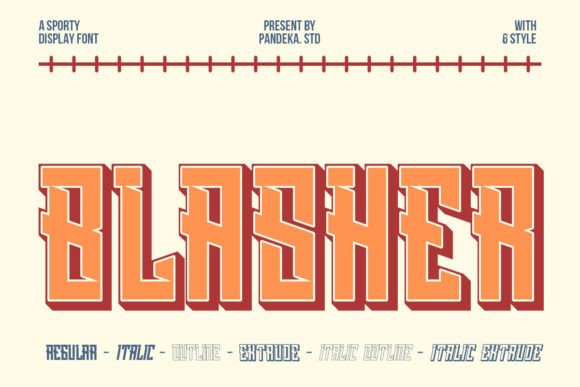
Introducing Blasher: The Ultimate Sporty Display Font for Energetic Designs
In the world of typography, fonts play a crucial role in conveying the tone and personality of a design. For projects that require a dynamic and athletic feel, such as sports-themed branding, logos, and posters, a font that packs a punch is essential. This is where Blasher comes in – a sporty display font with a condensed slab style that’s perfect for capturing the spirit of sports, particularly baseball.
What is Blasher Font?
Blasher is a carefully crafted display font designed to elevate your designs with its unique blend of dynamism and athleticism. Its condensed slab style gives it a strong presence, making it stand out in any design. Whether you’re working on a sports-themed project or an energetic design that requires a bold statement, Blasher is the perfect choice.
Key Features of Blasher Font
- 6 Styles: Blasher offers six distinct styles to cater to various design needs: Regular, Italic, Outline, Italic Outline, Extrude, and Italic Extrude. This versatility makes it suitable for a wide range of applications, from logos and branding to posters and more.
- Sporty and Athletic Feel: The font’s design is inspired by the dynamic and competitive spirit of sports, particularly baseball. Its condensed slab style gives it a unique character that captures the essence of athleticism.
- Strong Presence: Blasher’s bold and condensed style ensures that it stands out in any design, making it perfect for headlines, titles, and logos that require a strong visual impact.
Use Cases for Blasher Font
Blasher’s versatility and unique character make it suitable for a variety of design projects, including:
- Logo Design: Create bold and memorable logos for sports teams, brands, or businesses that require a dynamic and athletic feel.
- Branding: Use Blasher to develop a strong brand identity that captures the essence of athleticism and competitive spirit.
- Posters and Flyers: Add a bold statement to your posters and flyers with Blasher’s condensed slab style, perfect for promoting sports events, tournaments, or energetic campaigns.
- Social Media Graphics: Elevate your social media graphics with Blasher’s dynamic and athletic feel, ideal for creating engaging and shareable content.
Why Choose Blasher Font?
With so many fonts available, why choose Blasher? Here are a few reasons:
- Unique Character: Blasher’s condensed slab style and sporty feel give it a unique character that sets it apart from other fonts.
- Versatility: With six distinct styles, Blasher offers a range of options for designers to experiment with and find the perfect fit for their project.
- Ease of Use: Blasher is easy to use and integrate into various design projects, making it a convenient choice for designers.
Tips for Using Blasher Font Effectively
To get the most out of Blasher, here are some tips for using it effectively:
- Pair with Complementary Fonts: Combine Blasher with complementary fonts to create a harmonious and balanced design.
- Experiment with Styles: Try out different styles of Blasher to find the one that best suits your project’s needs.
- Use for Headlines and Titles: Blasher’s bold and condensed style makes it perfect for headlines and titles that require a strong visual impact.
Blasher is a sporty display font that’s perfect for designers looking to add a dynamic and athletic feel to their projects. With its condensed slab style, six distinct styles, and strong presence, Blasher is ideal for a wide range of applications, from logos and branding to posters and social media graphics. Whether you’re working on a sports-themed project or an energetic design, Blasher is sure to make a bold statement.